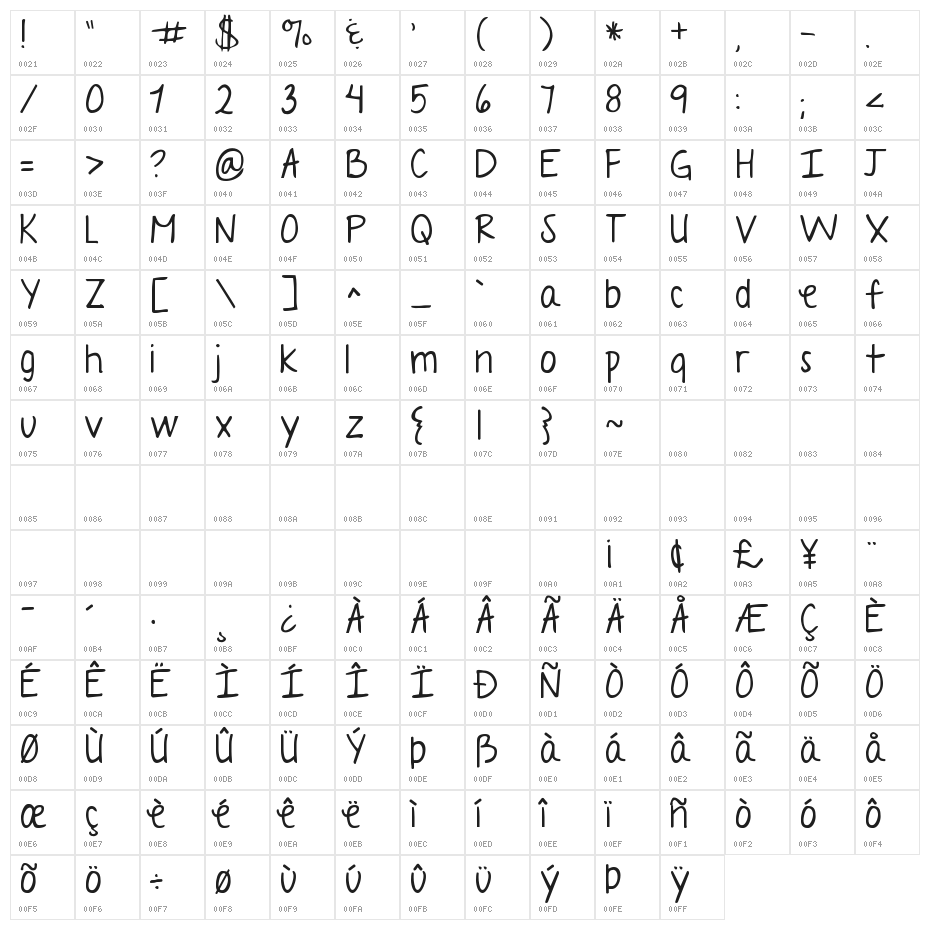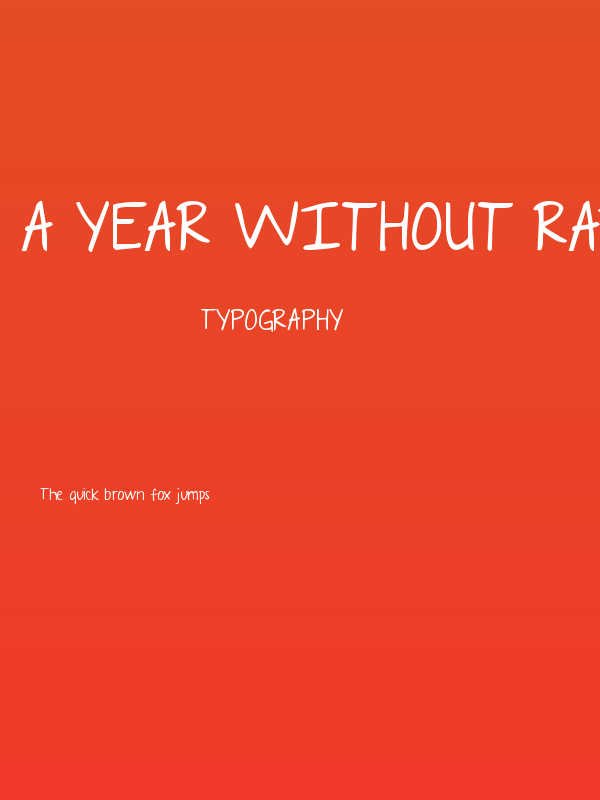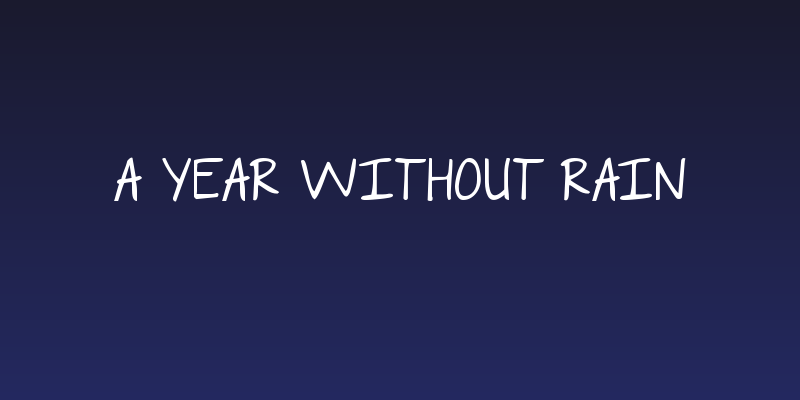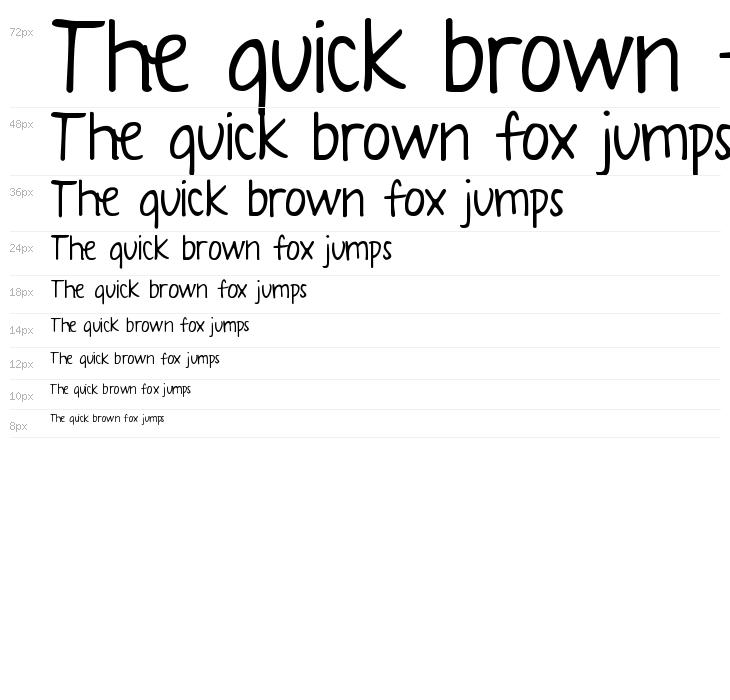
A Year Without Rain Font
A Year Without Rain Description
This playful and casual font features a handwritten style with a friendly and approachable appearance. The letters are slightly rounded and have a consistent stroke width, giving it a uniform look. The uppercase letters are bold and prominent, while the lowercase letters maintain a smooth and flowing form. Numbers and special characters are designed to match the overall aesthetic, ensuring a cohesive look across all text elements. The font's informal style makes it suitable for projects that require a personal touch or a relaxed vibe.
Overall StyleCasual
Use CaseHeadlines, Informal text, Creative projects
Proposed ProjectsIdeal for greeting cards, children's books, casual invitations, and social media graphics.